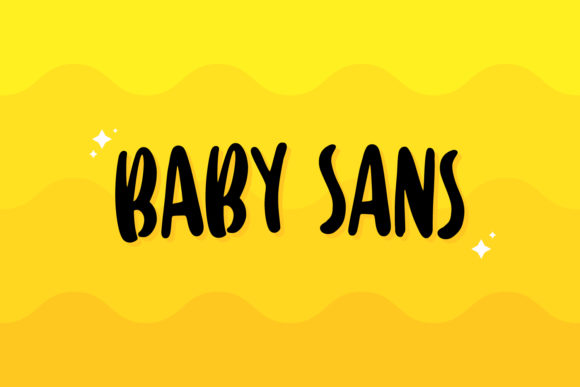
Baby Sans Font: The Perfect Choice for Kids’ Theme Designs
In the world of typography, fonts play a crucial role in conveying the tone and personality of a design. When it comes to creating engaging and playful designs for kids, the right font can make all the difference. This is where Baby Sans Font comes in – a hand-drawn brush sans font that has taken the design world by storm with its unique characters and funny style.
What is Baby Sans Font?
Baby Sans Font is a carefully crafted, hand-drawn brush sans font that exudes a sense of playfulness and fun. Its distinctive characters and quirky style make it an ideal choice for any kids’ theme designs. Whether you’re working on a project for children’s books, educational materials, or simply want to add a touch of whimsy to your designs, Baby Sans Font is the perfect fit.
Key Features of Baby Sans Font
- Hand-drawn brush sans font: Baby Sans Font boasts a unique, hand-drawn quality that sets it apart from other fonts.
- Unique characters: Each character in the font has been carefully designed to bring a sense of fun and playfulness to your designs.
- Funny style: The font’s quirky style is sure to bring a smile to anyone’s face, making it perfect for kids’ theme designs.
- Suitable for kids’ theme designs: From children’s books to educational materials, Baby Sans Font is the perfect choice for any project aimed at kids.
10 Creative Ways to Use Baby Sans Font
- Children’s books: Use Baby Sans Font to bring your children’s book to life with engaging and playful text.
- Educational materials: Make learning fun with Baby Sans Font’s quirky style and unique characters.
- Kids’ party invitations: Create eye-catching and playful invitations for kids’ parties with Baby Sans Font.
- Playful posters: Use Baby Sans Font to create fun and engaging posters for kids’ events or activities.
- Social media graphics: Add a touch of whimsy to your social media graphics with Baby Sans Font.
- Website headers: Use Baby Sans Font to create playful and engaging website headers for kids’ websites or blogs.
- Merchandise: Create fun and playful merchandise, such as t-shirts or stickers, with Baby Sans Font.
- Signage: Use Baby Sans Font to create eye-catching and playful signage for kids’ events or attractions.
- Packaging design: Add a touch of whimsy to your packaging design with Baby Sans Font.
- Digital products: Use Baby Sans Font to create engaging and playful digital products, such as e-books or interactive games.
The Benefits of Using Baby Sans Font
Using Baby Sans Font in your designs offers numerous benefits, including:
- Instant recognition: The font’s unique and playful style ensures instant recognition and engagement.
- Emotional connection: Baby Sans Font’s quirky style helps create an emotional connection with kids and parents alike.
- Flexibility: The font’s versatility makes it suitable for a wide range of design projects.
- Easy to read: Despite its playful style, Baby Sans Font remains easy to read, making it perfect for body text and headings.
Tips for Using Baby Sans Font Effectively
To get the most out of Baby Sans Font, follow these tips:
- Use it sparingly: While Baby Sans Font is playful and fun, it’s essential to use it sparingly to avoid overwhelming the design.
- Pair it with complementary fonts: Pair Baby Sans Font with complementary fonts to create visual interest and hierarchy.
- Experiment with colors: Don’t be afraid to experiment with different colors to add an extra layer of fun and playfulness to your design.
- Keep it legible: Ensure that the font remains legible, even at smaller sizes.
In conclusion, Baby Sans Font is a hand-drawn brush sans font that offers a unique and playful way to add a touch of whimsy to your designs. Its distinctive characters and quirky style make it perfect for kids’ theme designs, from children’s books to educational materials. By following the tips outlined above and experimenting with different design ideas, you can unlock the full potential of Baby Sans Font and create engaging, playful, and memorable designs that kids and parents will love.